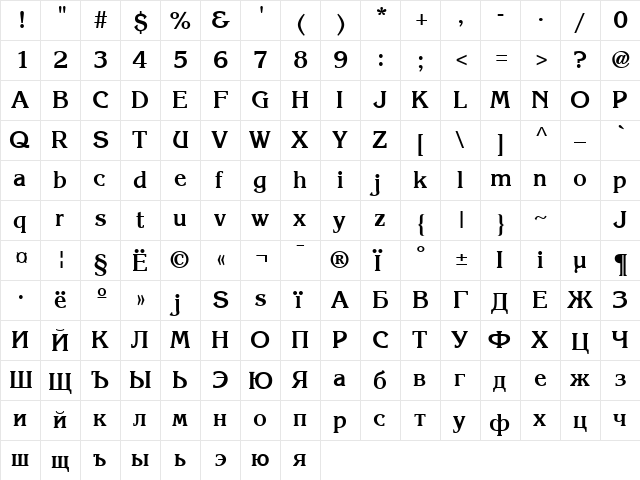
AGKornelia Bold
Design Context for AGKornelia Typeface
AGKornelia is a composed and adaptable typeface that performs quietly and consistently across a wide range of design contexts. The heavy weight commands attention and anchors typographic hierarchies.